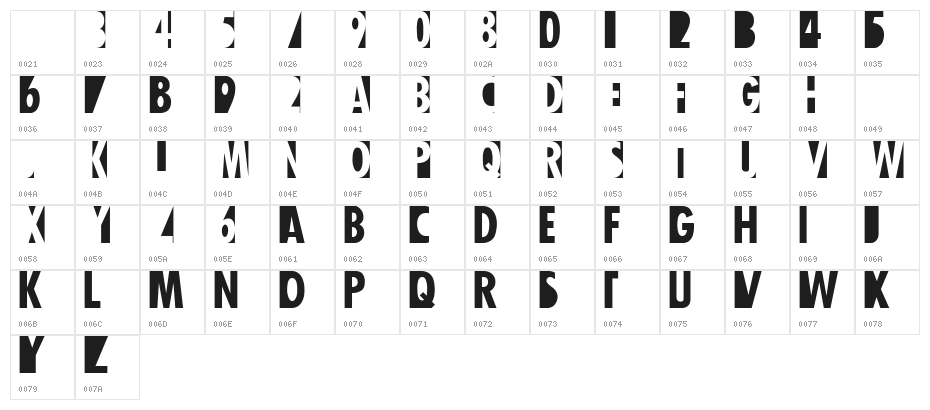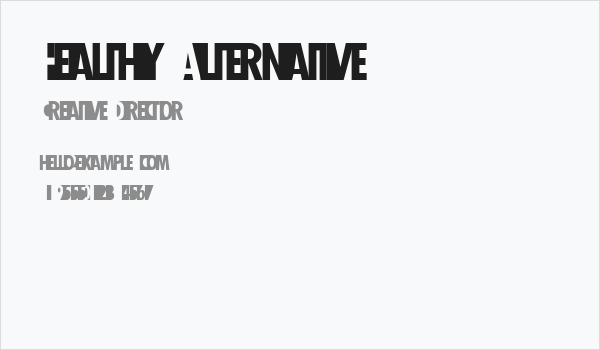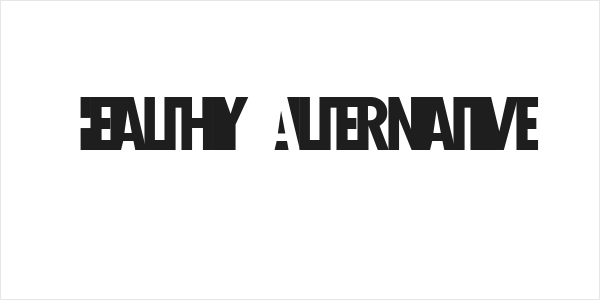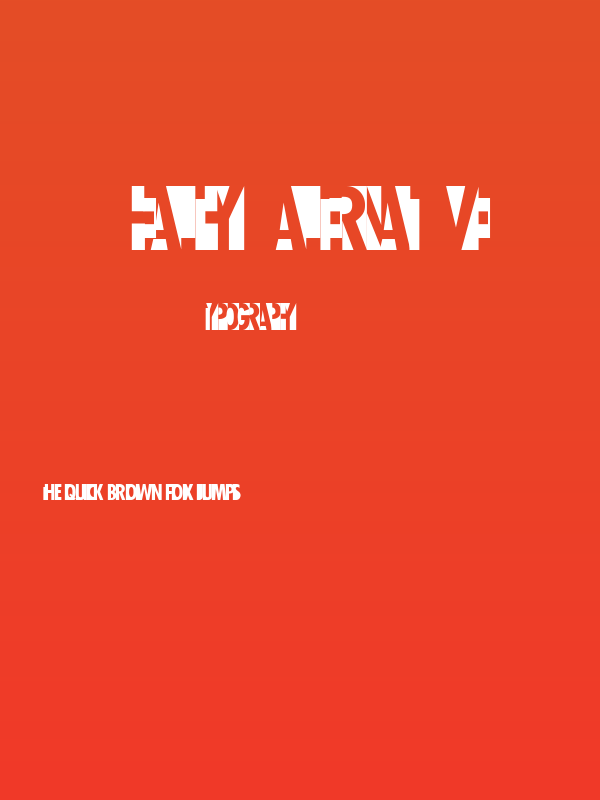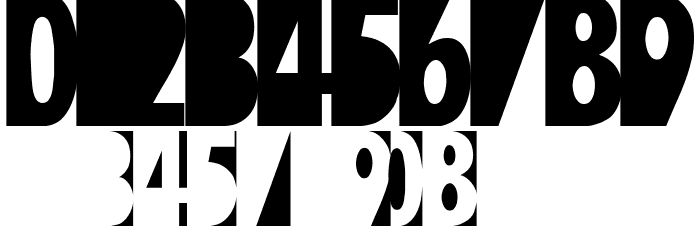
Healthy Alternative Font
Healthy Alternative Description
This font features bold, geometric letterforms with a strong presence. The characters are constructed with thick strokes and sharp angles, creating a sense of stability and modernity. The uppercase letters are particularly striking, with a uniform height and width that gives a cohesive appearance. The lowercase letters maintain the same boldness, ensuring readability while adding a touch of uniqueness. The numerals are similarly bold, with a consistent weight that complements the alphabet. Special characters are included, maintaining the same design principles. Overall, this font is designed to make a statement, suitable for impactful headlines and branding.
| Proposed Projects | Ideal for branding, posters, and headlines where a strong visual impact is desired. |